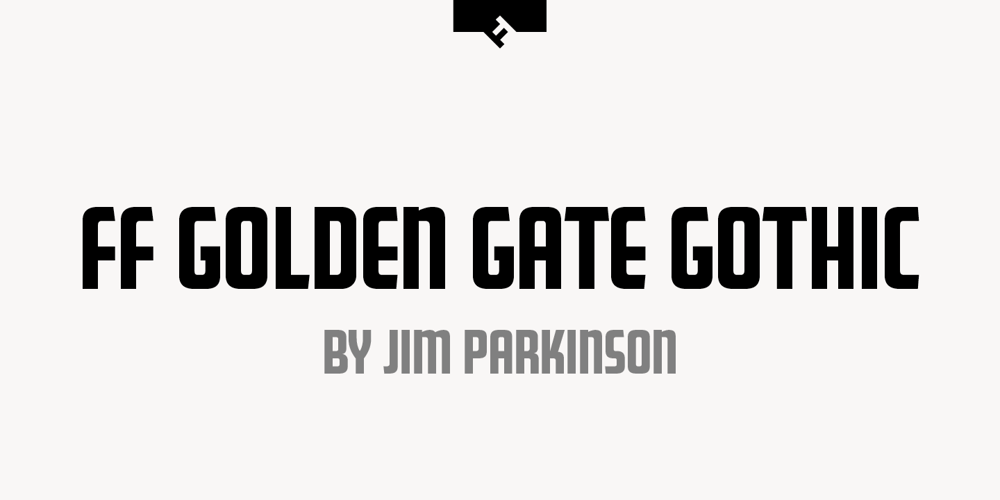
FF Golden Gate Gothic
FF Golden Gate Gothic font
FF Golden Gate Gothic Font Family was designed by Jim Parkinson and published by FontFont. FF Golden Gate Gothic contains 1 styles and family package options. American type designer Jim Parkinson created this display and sans FontFont in 1996. The font is ideally suited for advertising and packaging, festive occasions, film and tv as well as poster and billboards. FF Golden Gate Gothic provides advanced typographical support with features such as ligatures and stylistic alternates. It comes with proportional lining figures.